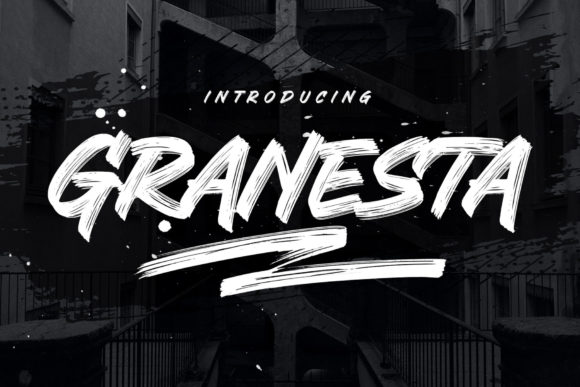
Granesta Font
Granesta is a cool and bold brushed display font. This font is suitable for designs such as t-shirts, sportswear, logos, advertisements, clothing, and more.